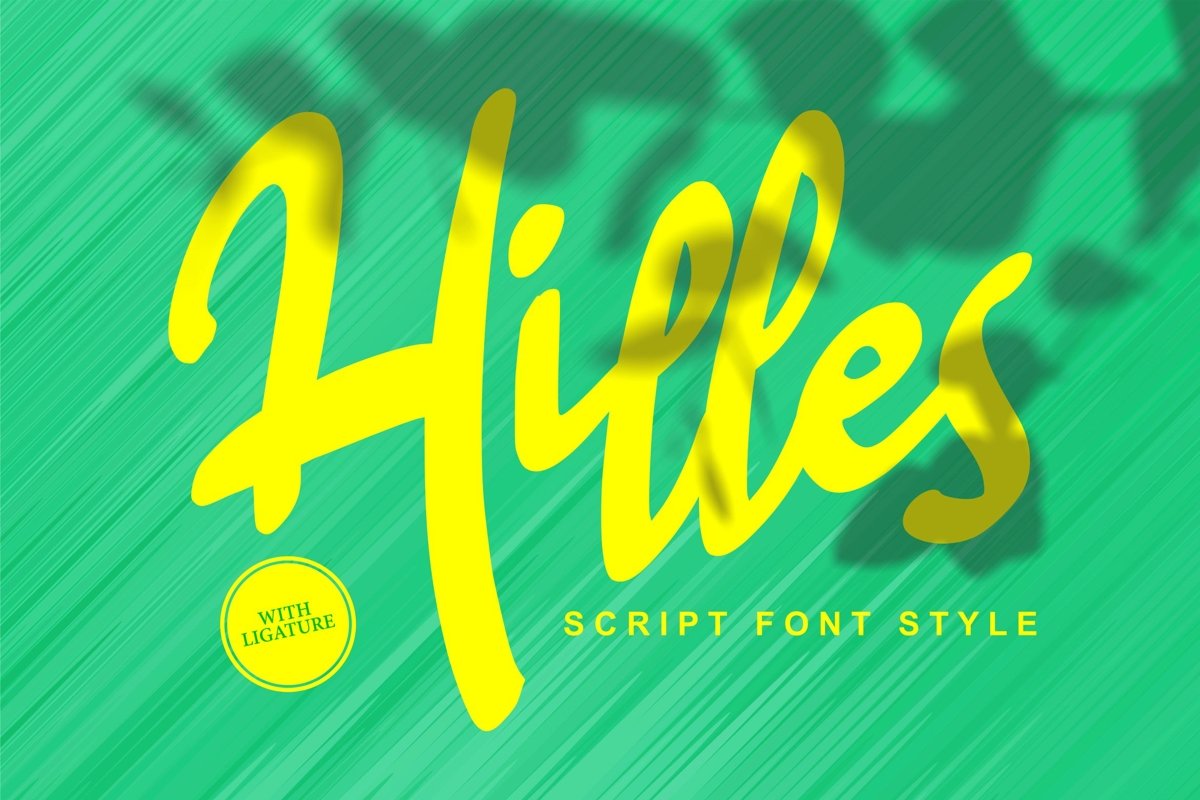
Hilles | Script Font Style
Hilles
**Hilles | Script Font Style** with a calligraphy style, So beautiful on invitation like greeting cards, branding materials, business cards, quotes, posters, and more!
* Tons of glyphs
* Alternates and Ligatures
* Punctional
* Fonts include **Multilingual Support**